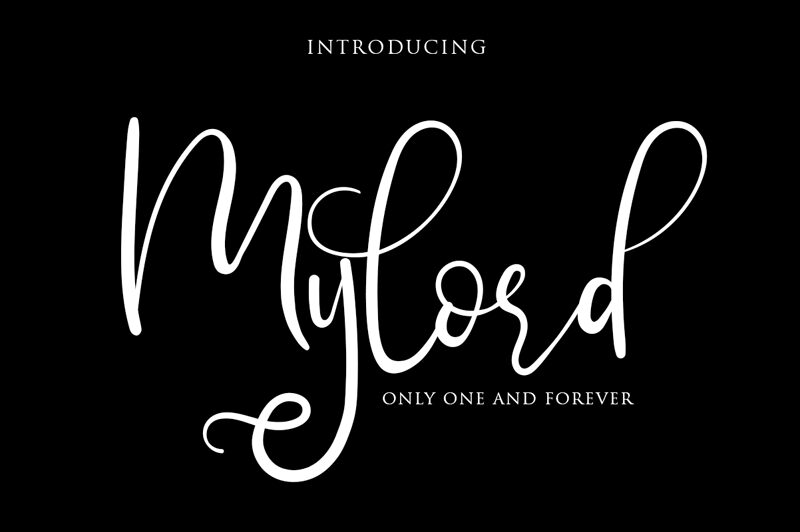
Mylord
Mylord, a captivating calligraphic font created by Haksen Letters, exudes elegance and sophistication. This light-weighted masterpiece showcases a graceful, flowing script that evokes a sense of timeless artistry. The organic, hand-drawn strokes and seamless letter connections lend an air of authenticity, making Mylord an ideal choice for luxury branding, editorial layouts, and personalized stationery.
The font's distinctive flourishes and subtle variations in line thickness add depth and character, elevating any design it graces. Mylord's versatility shines through, seamlessly transitioning from formal to casual applications, making it a versatile tool for designers seeking to infuse their projects with a touch of refined charm.
Unlock the potential of Mylord across a wide range of design disciplines, from wedding invitations and event branding to book covers and packaging design. This adaptable font can lend a sophisticated, personal touch to digital and print media, ensuring your creations leave a lasting impression on your audience.